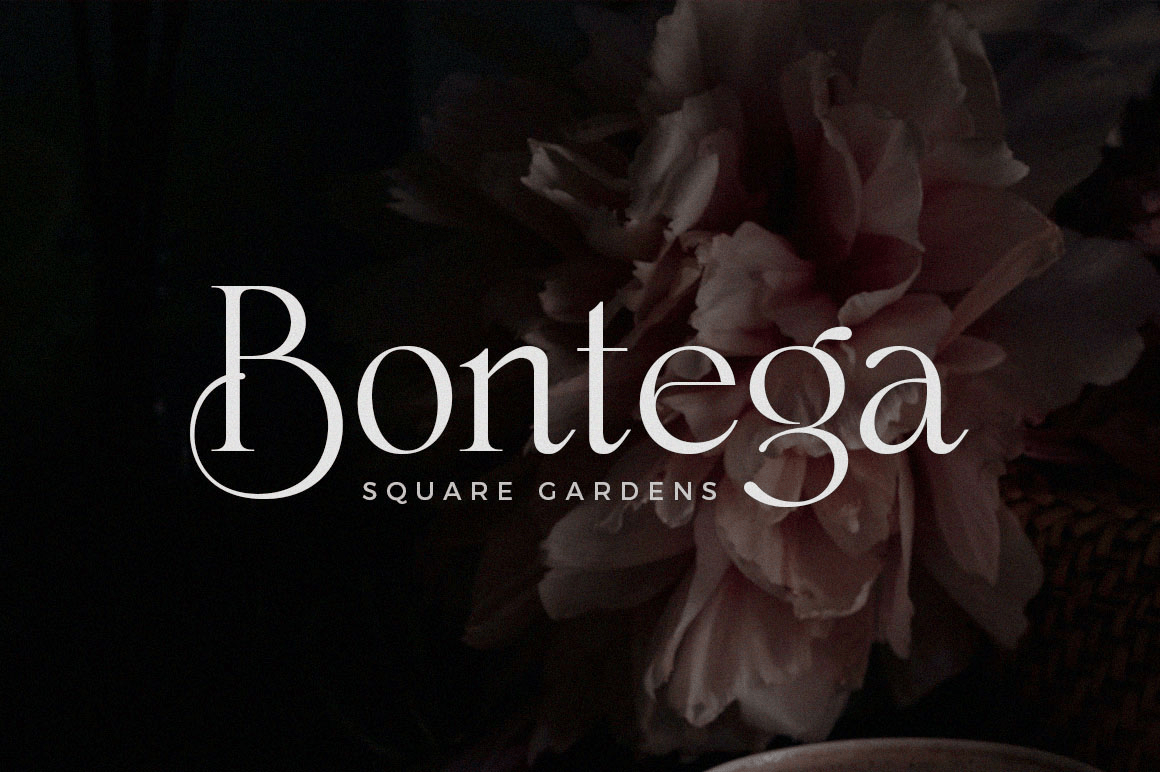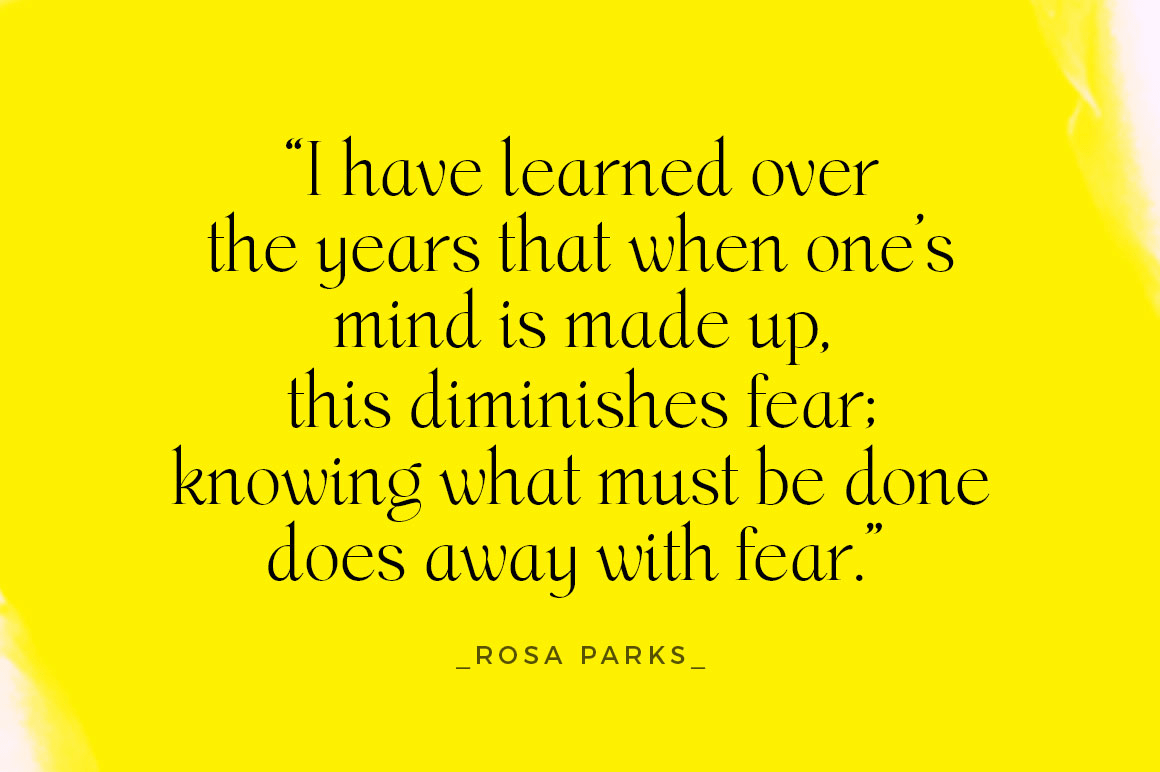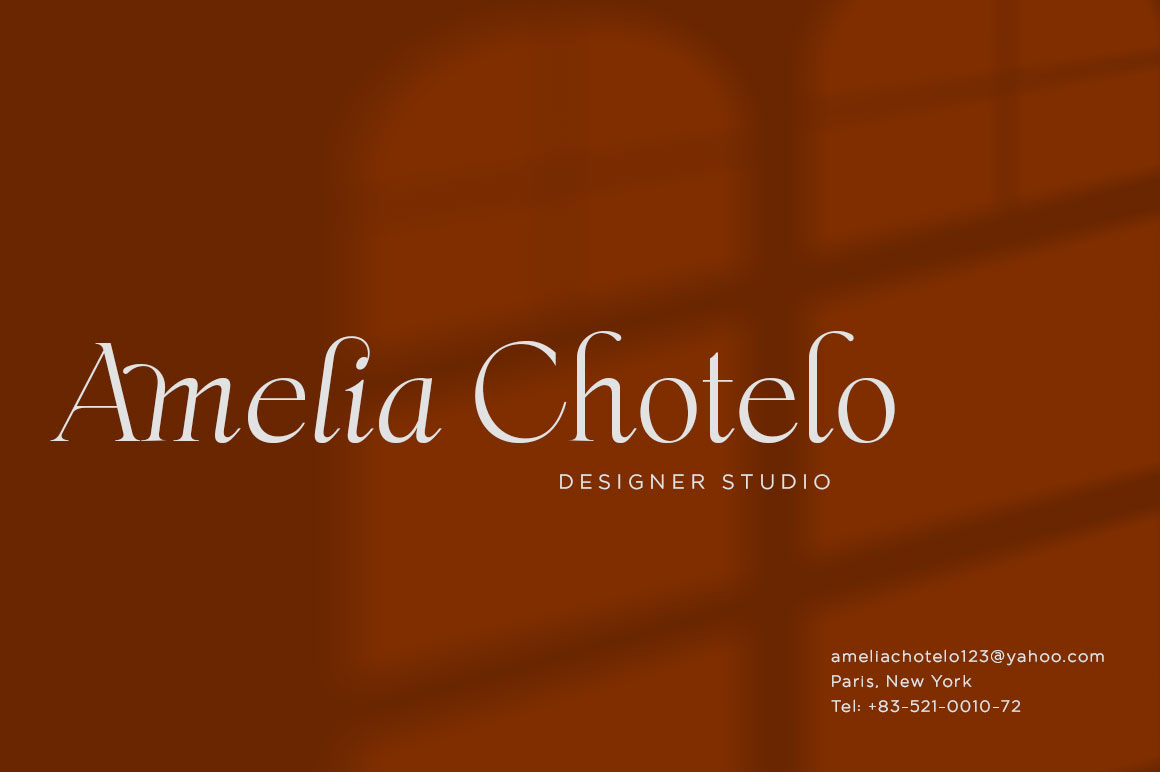
About Miegha
Introducing Miegha – a serif typeface inspired by the beauty of classic serif and calligraphy styles. Both upright and italic fonts blend with modern appeal and unique binding. This high contrast and light weight font is perfect for feminine logo signs,…